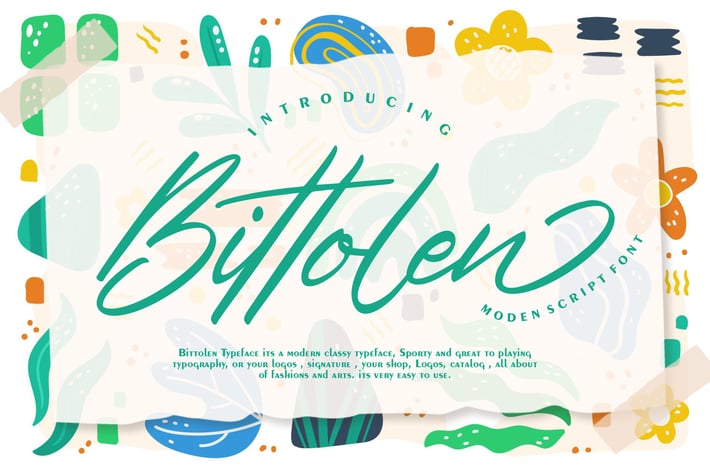
Bittolen | Modern Script Font with a calligraphy style, So beautiful on invitation like greeting cards, branding materials, business cards, quotes, posters, and more!